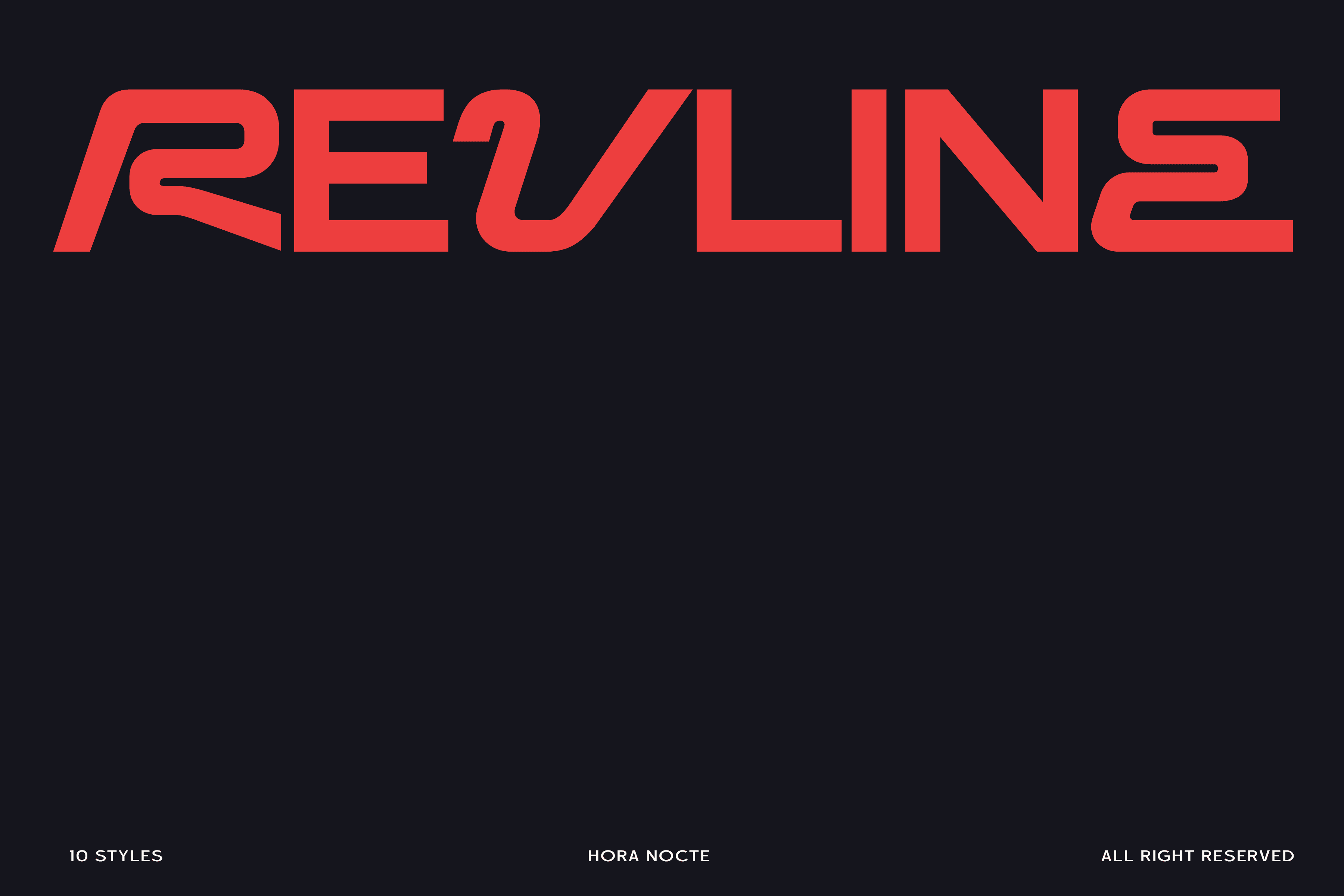
<p><strong>HN REVLINE</strong> is a futuristic sans serif typeface built for motion, energy, and precision. Inspired by the world of racing, aerodynamics, and advanced technology, <strong>HN REVLINE</strong> captures the spirit of speed through sharp geometry, sleek curves, and bold rhythm.<br>Perfect for motorsport branding, digital interfaces, esports logos, and high-performance design systems. <strong>HN REVLINE</strong> brings versatility for both display and identity work, from aggressive headlines to minimal tech layouts.</p>